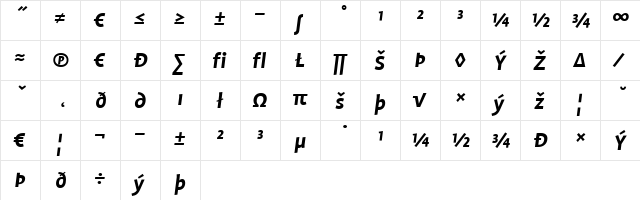
ProfileXP Bold Font Preview
ProfileXP Bold
ProfileXP Bold Font Details
| Foundry | by Martin Wenzel, published by FontShop International for the FontFont library. Profile is a trademark of FSI, Fonts and Software GmbH,http://www.fontfont.de |
Design Context for ProfileXP Typeface
ProfileXP is a composed and adaptable typeface that performs quietly and consistently across a wide range of design contexts. Its bold stroke weight gives it real presence on the page.